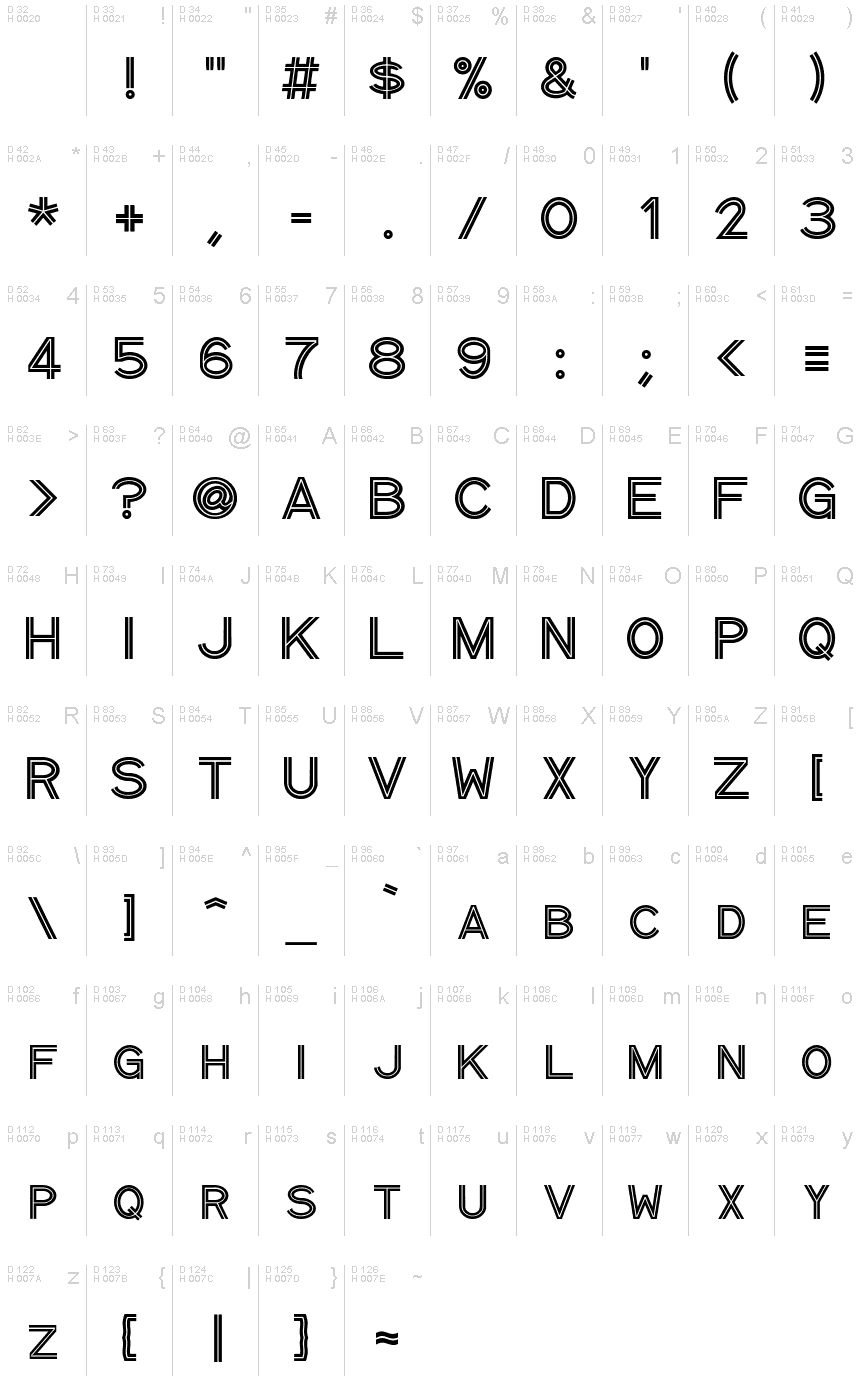
Wild
Wild, crafted by Pallmann Foundry, embodies a unique fusion of contemporary style and a touch of untamed spirit. This semi-light, semi-expanded sans-serif font boasts an aesthetic that is both striking and versatile, appealing to designers seeking a font with character and readability.
The design of Wild showcases an interesting look that commands attention without overwhelming the viewer. The semi-light weight offers a balanced blend of subtlety and impact, while the semi-expanded width contributes to its presence, giving each character ample breathing room.
Wild’s clean lines and open forms make it an excellent choice for branding, editorial designs, and digital media where a modern yet distinctive typeface is desired. It has the potential to add personality to various creative projects without sacrificing clarity – ideal for those who want their message to stand out with sophistication.
Whether employed in bold headlines or elegant body text, Wild stands poised to elevate your design work with its refined charm and contemporary flair.